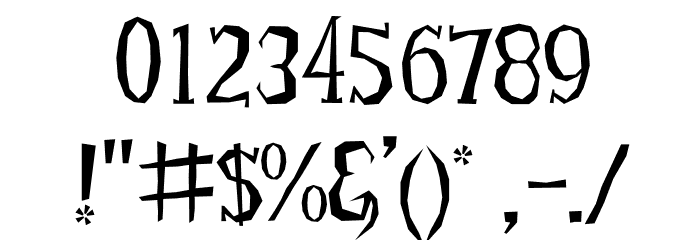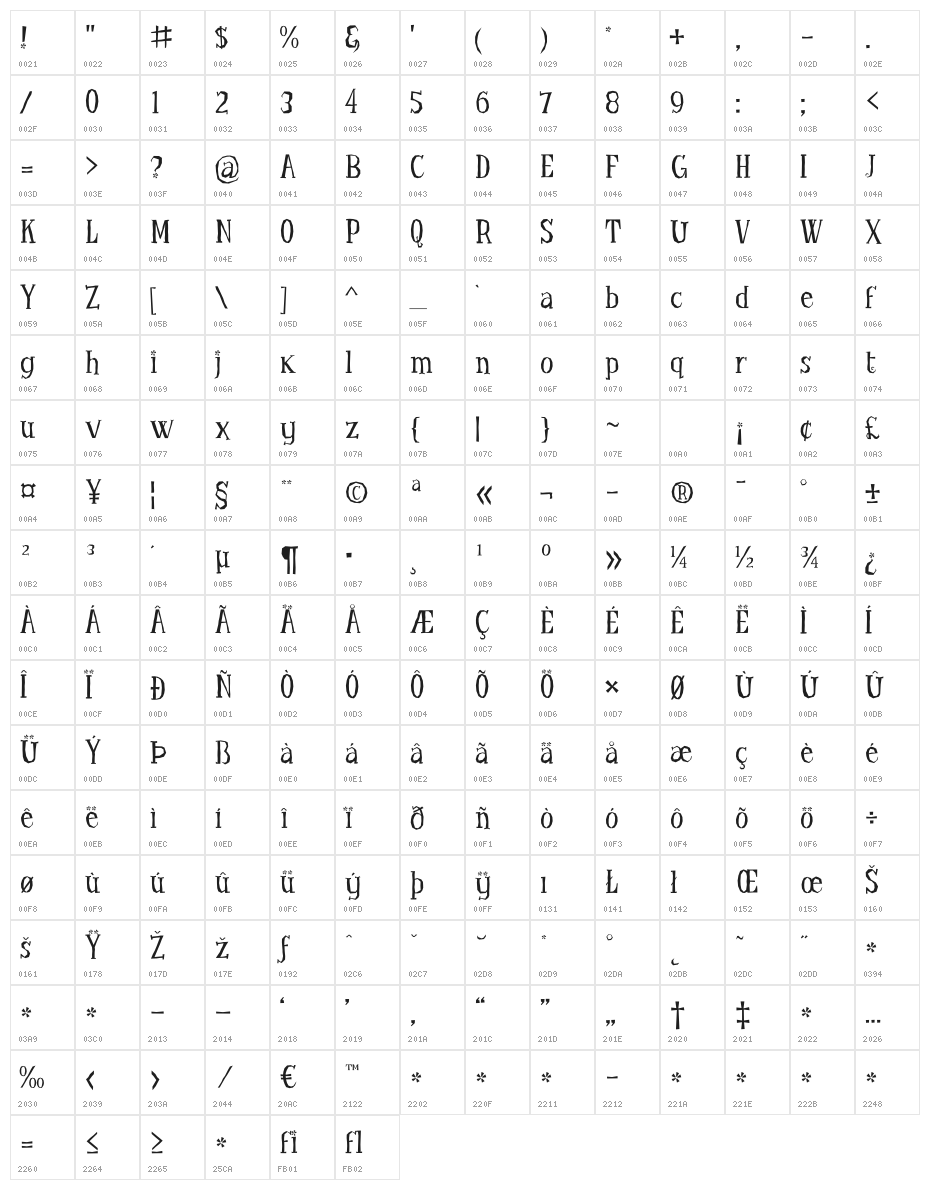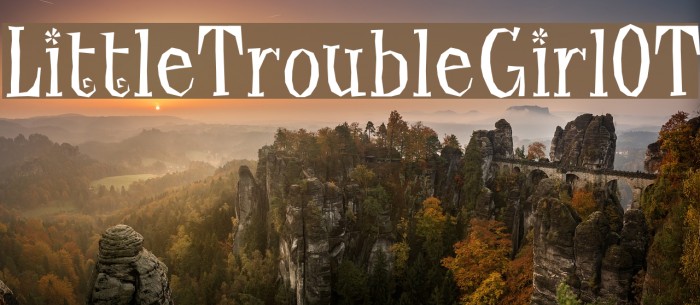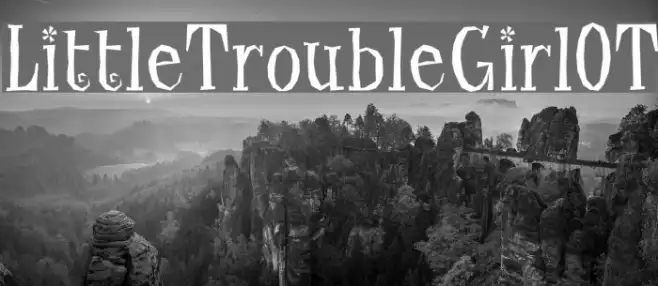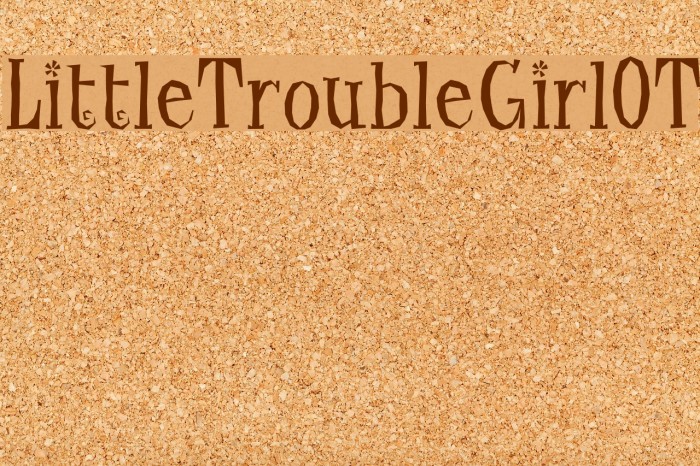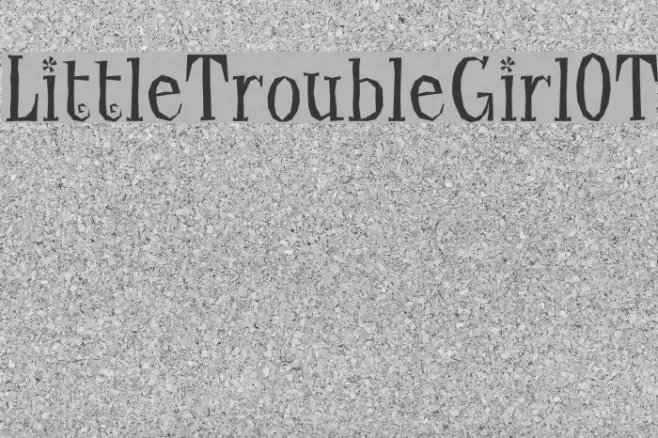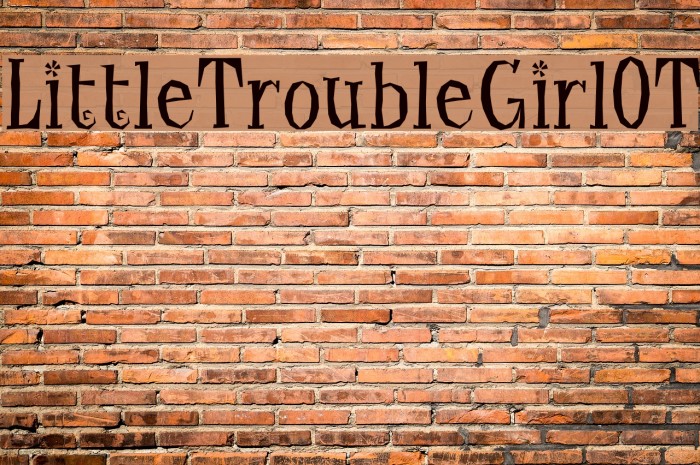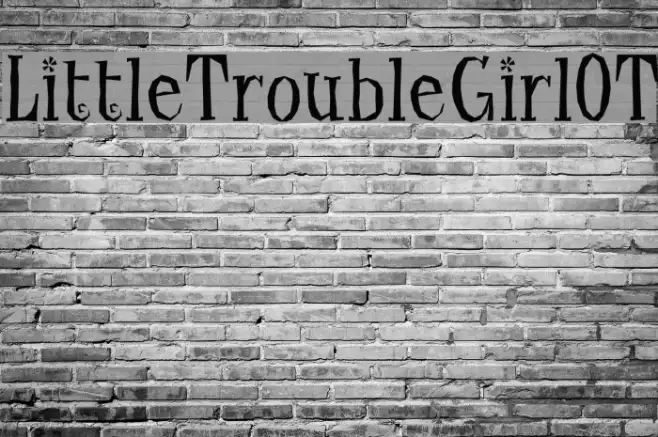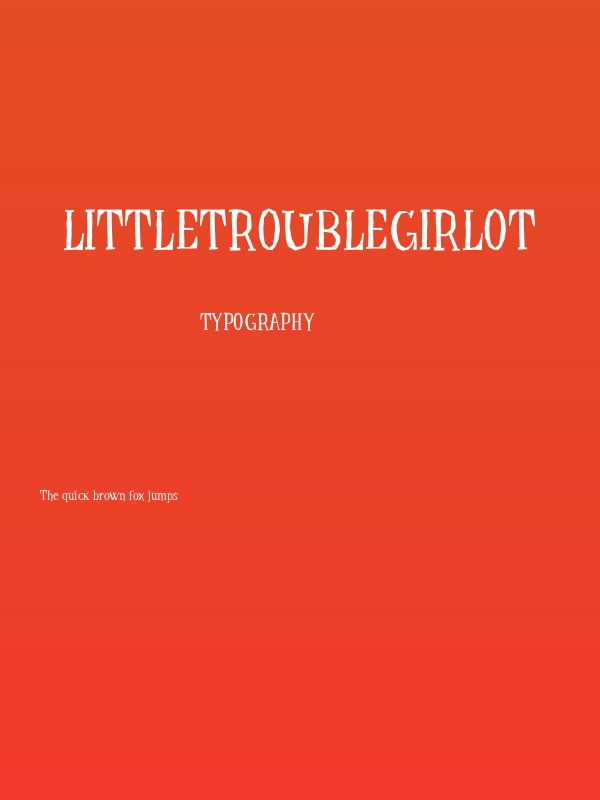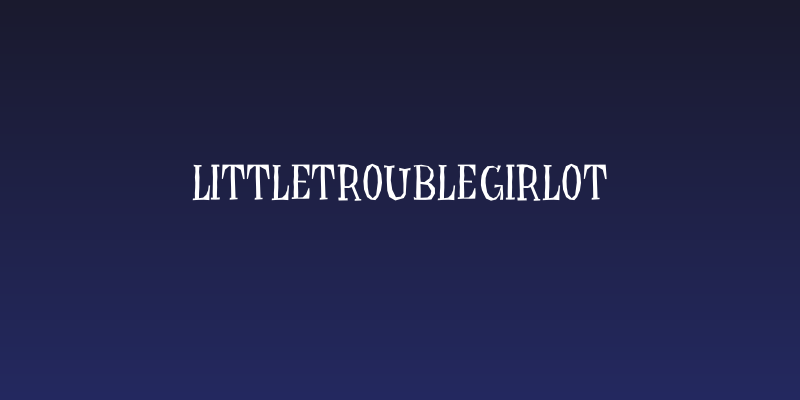
LittleTroubleGirlOT Font
LittleTroubleGirlOT Description
This font features a quirky and playful design with uneven strokes and a hand-drawn appearance. The letters have a whimsical, slightly distorted look, giving them a unique character. The uppercase and lowercase letters maintain a consistent style, with exaggerated serifs and irregular shapes. Numbers and special characters follow the same playful aesthetic, making the font suitable for creative and informal projects. The overall design is reminiscent of a hand-crafted or artistic style, perfect for adding a touch of personality to any text.